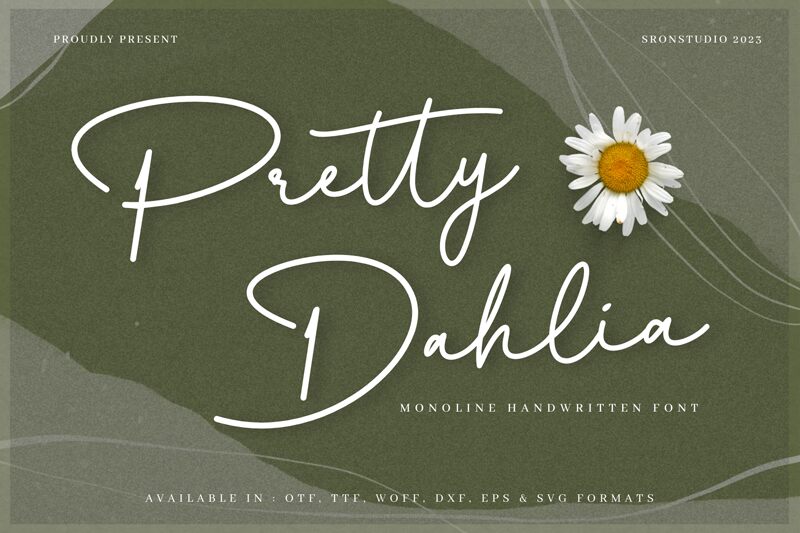
Pretty Dahlia font is a free handwritten font from Sronstudio that boasts an elegantly flowing cursive style. Its aesthetic combines modern and sophisticated elements via thin, soft, and rounded lines that create an overall amazing look. This light font is easily recognized by its very particular appearance characterized best by its simple and unpretentious design.
With such beautiful aesthetics, this font will work well for personal branding designs. Other suitable uses for it are packaging designs, posters, magazine covers, movie titles or TV show titles logos, invitations such as weddings or birthdays, banners and commercial ads.